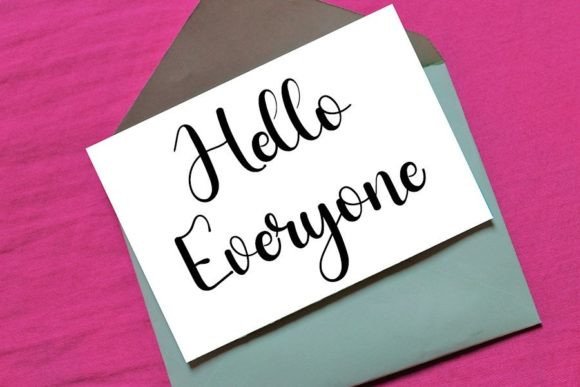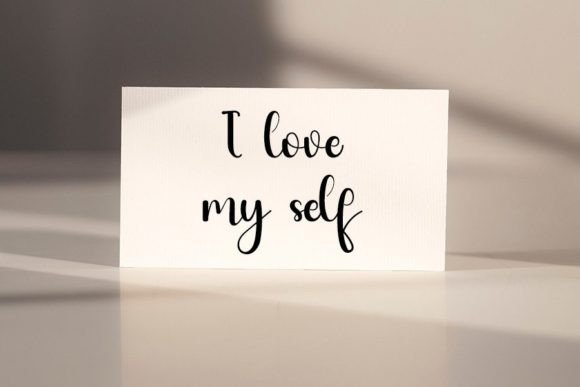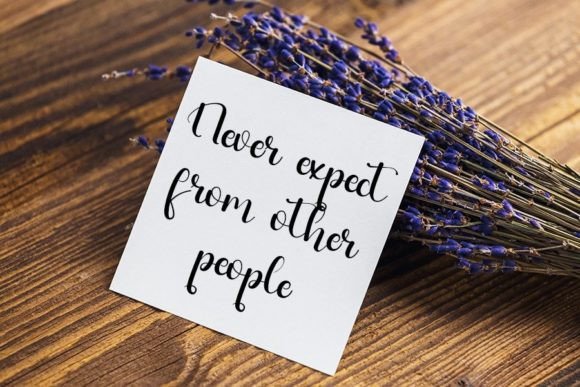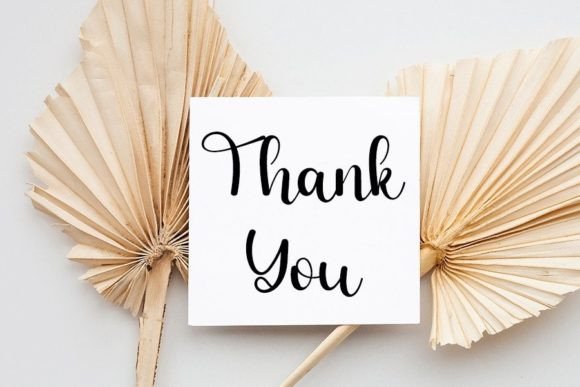
Bolster Pillow Font – Free Download
Introduction to Bolster Pillow Font
Bolster Pillow is a neat and beautiful handwritten font described by an elegant touch, perfect for your favorite projects.
Fall in love with its incredibly distinct and timeless style, and use it to create spectacular designs .
Key Features of Bolster Pillow Font